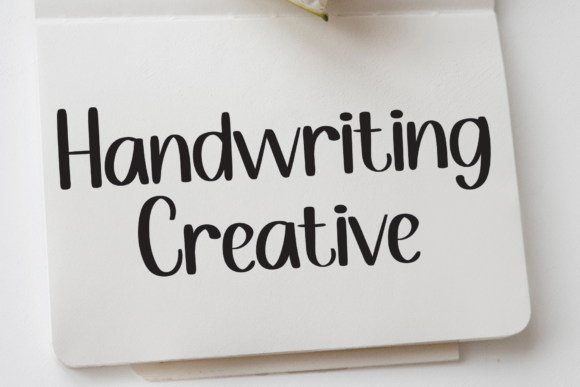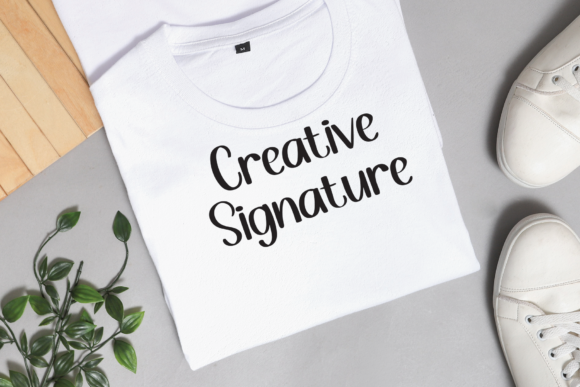
Brillian Font
db-ku.com - Script & Handwritten -- Brillian is a neat, casual and friendly handwritten font. It is suitable for any branding project like logos, t-shirt printing, sport designs, and more. It will look outstanding in a wide range of contexts.